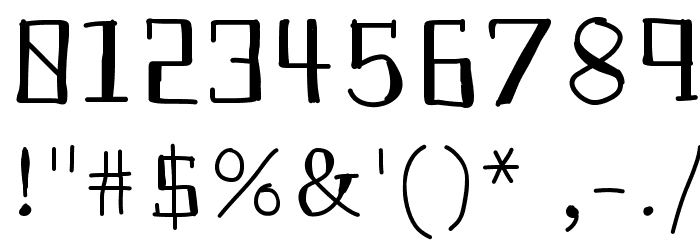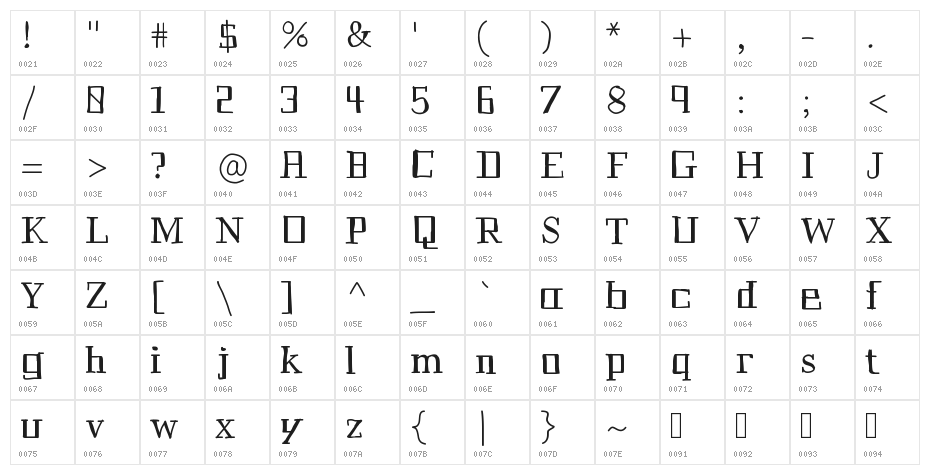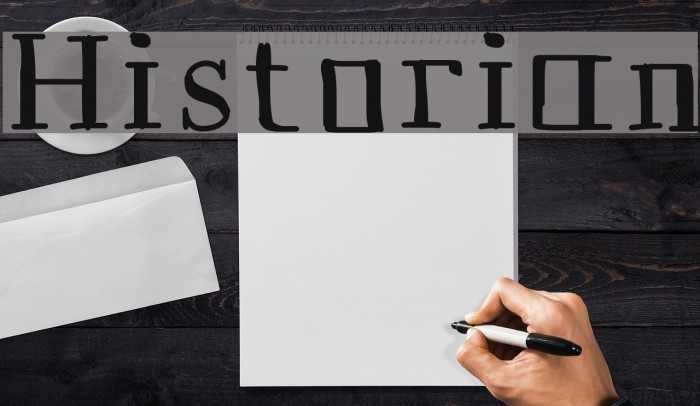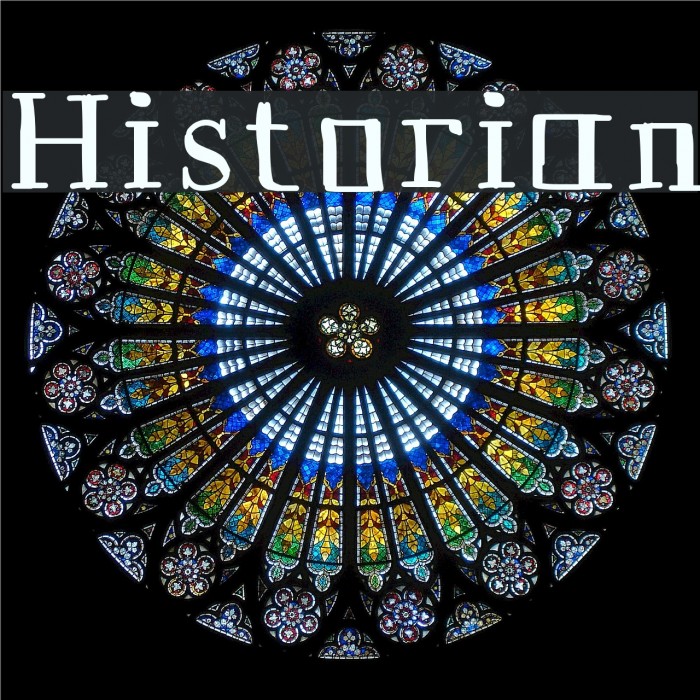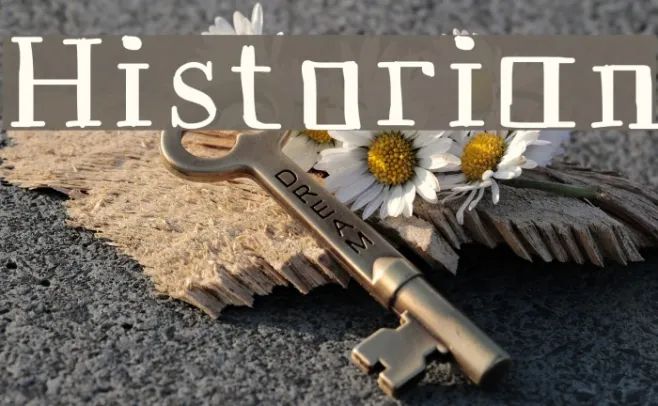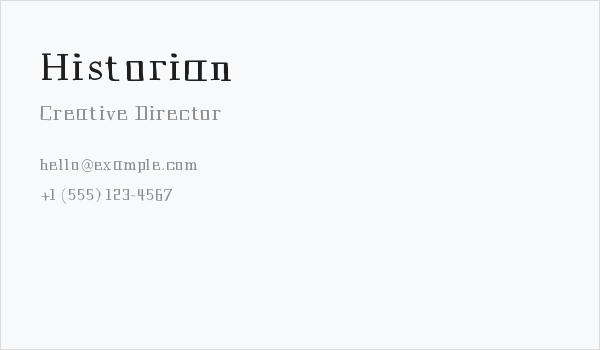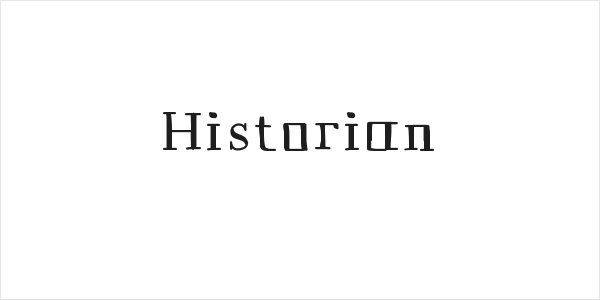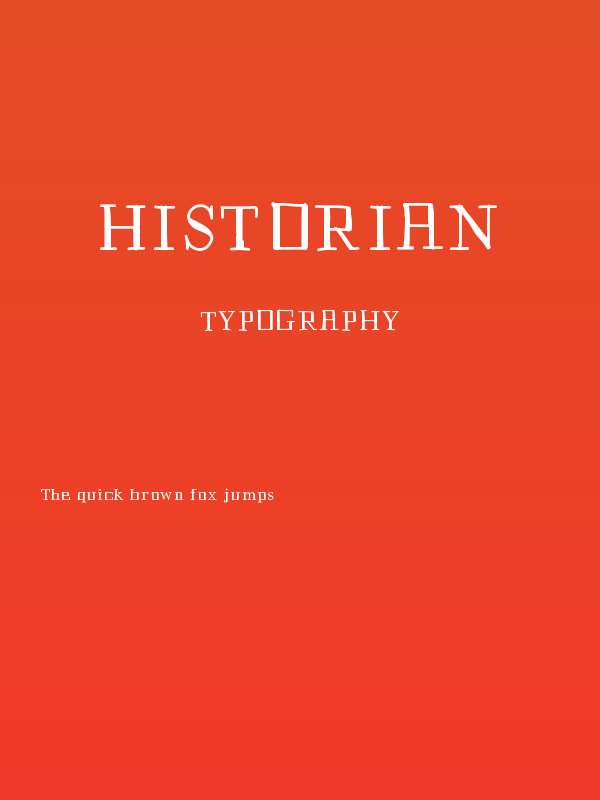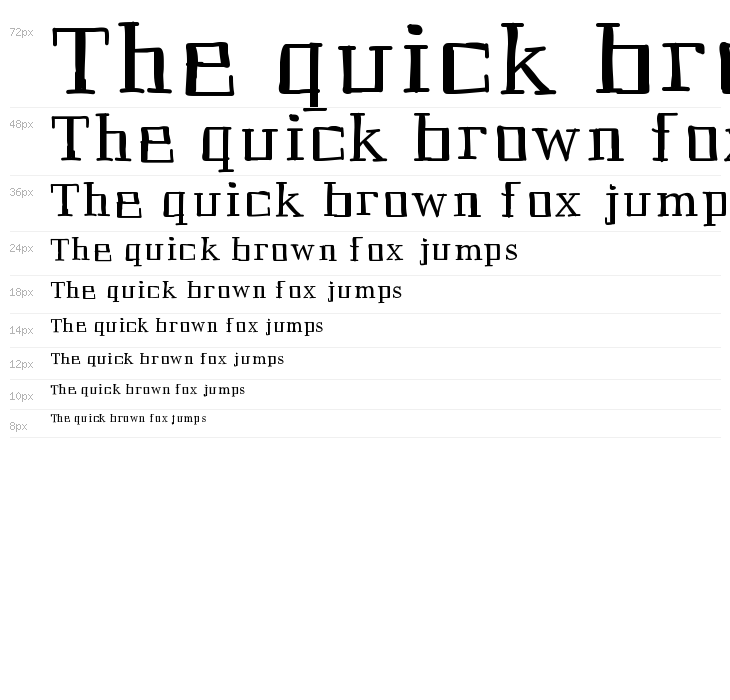
Historian Font
Historian Description
This font features a unique blend of vintage and modern elements, characterized by its distinct, slightly uneven strokes and a hand-drawn appearance. The uppercase letters exhibit a bold, structured form with subtle serifs, while the lowercase letters maintain a consistent style with a touch of whimsy. Numbers are bold and clear, ensuring readability. Special characters are creatively designed, adding to the font's overall charm. The font's irregularities give it a handcrafted feel, making it stand out in any design project.
| Proposed Projects | Ideal for projects that require a vintage or rustic feel, such as posters, invitations, branding for artisanal products, or book covers. |